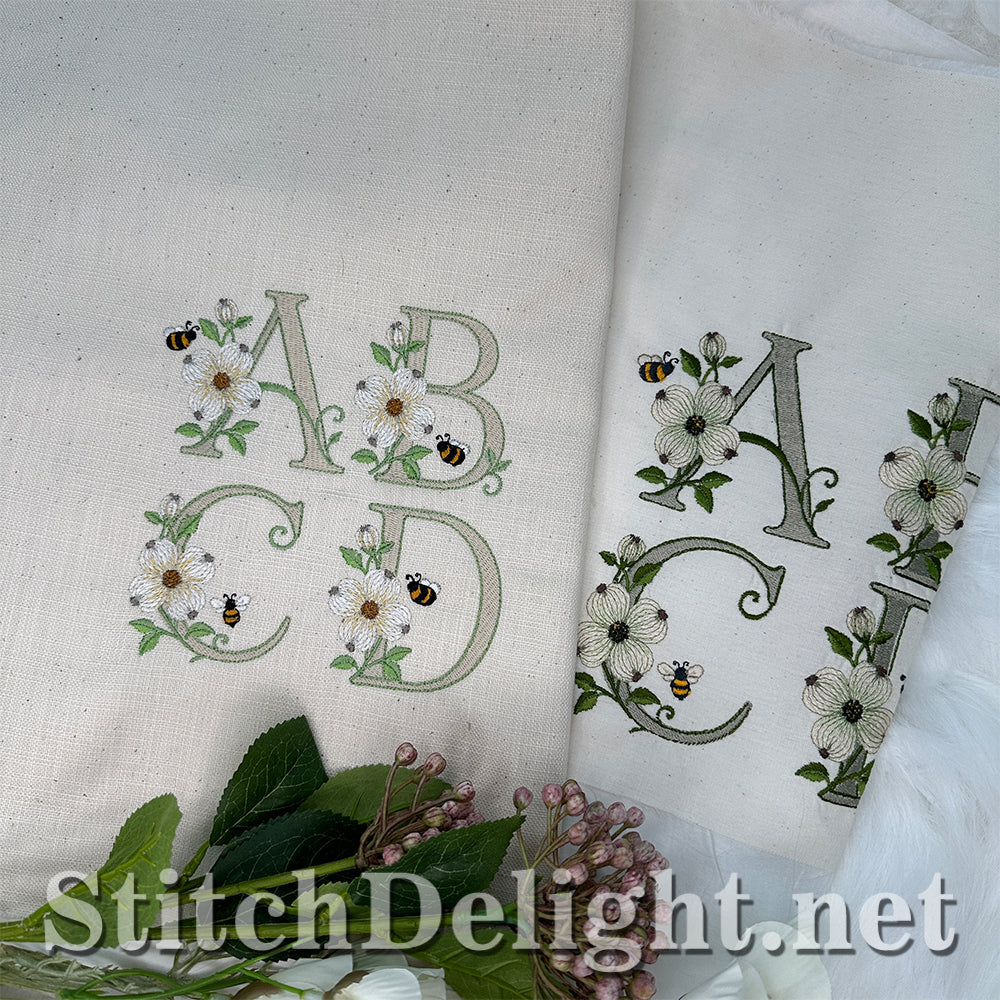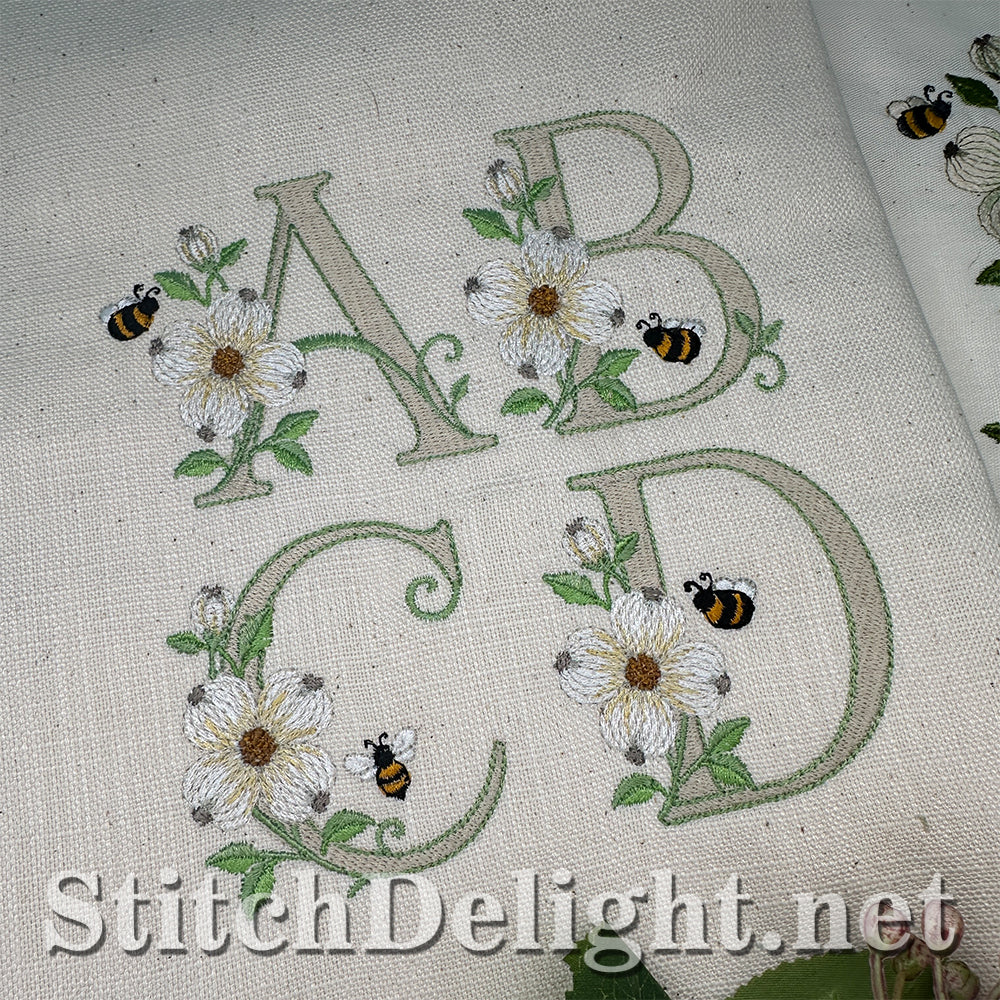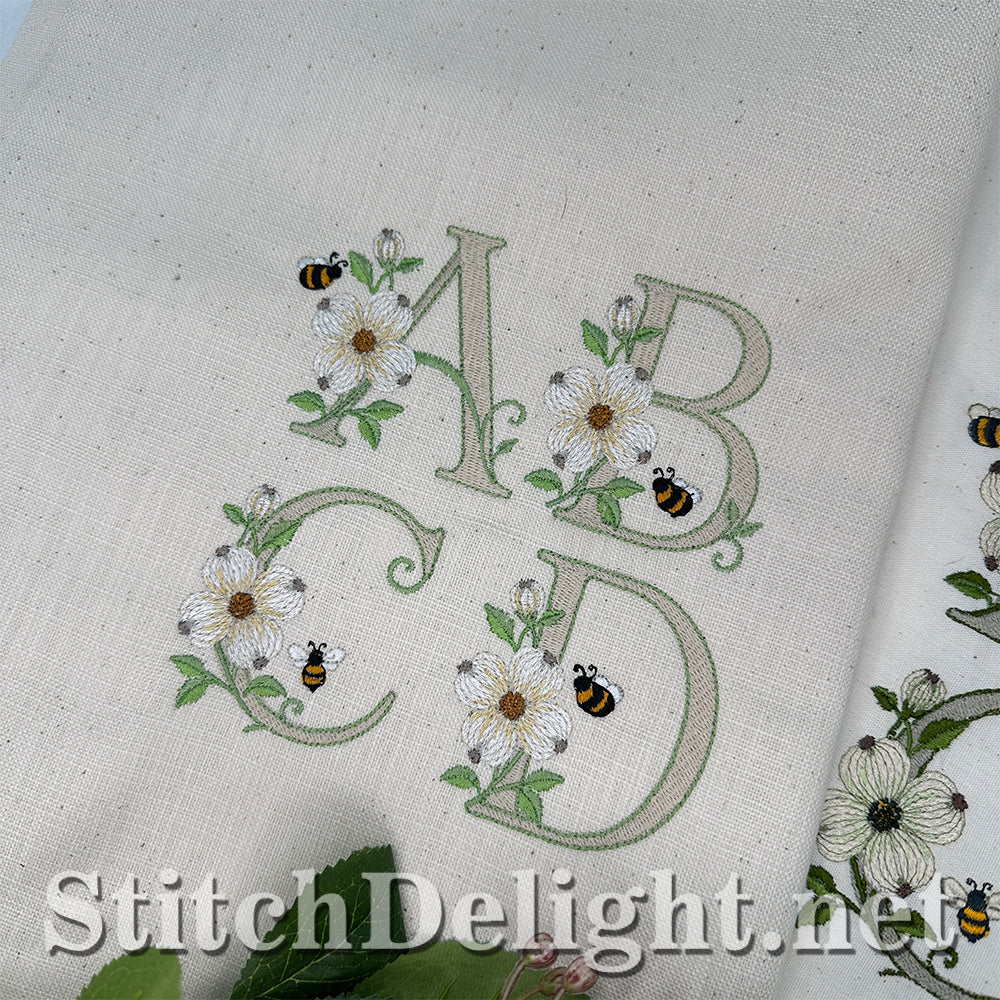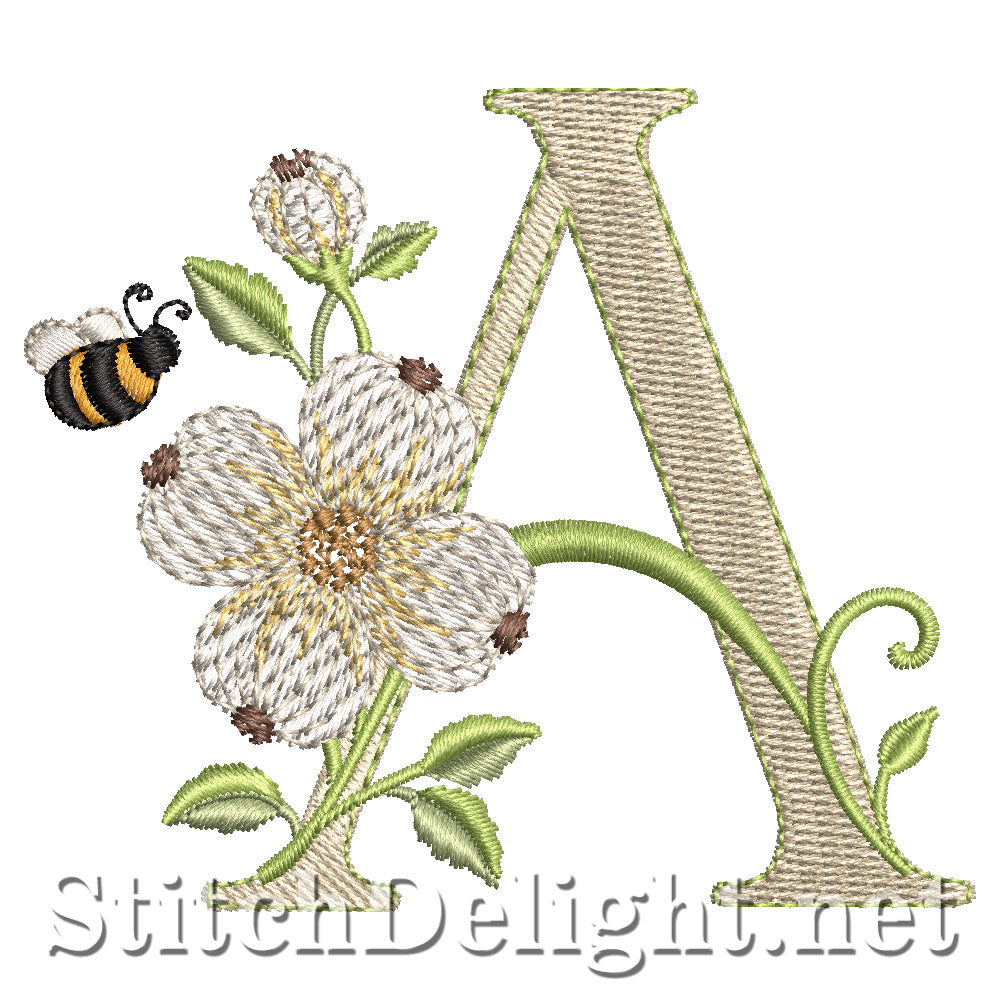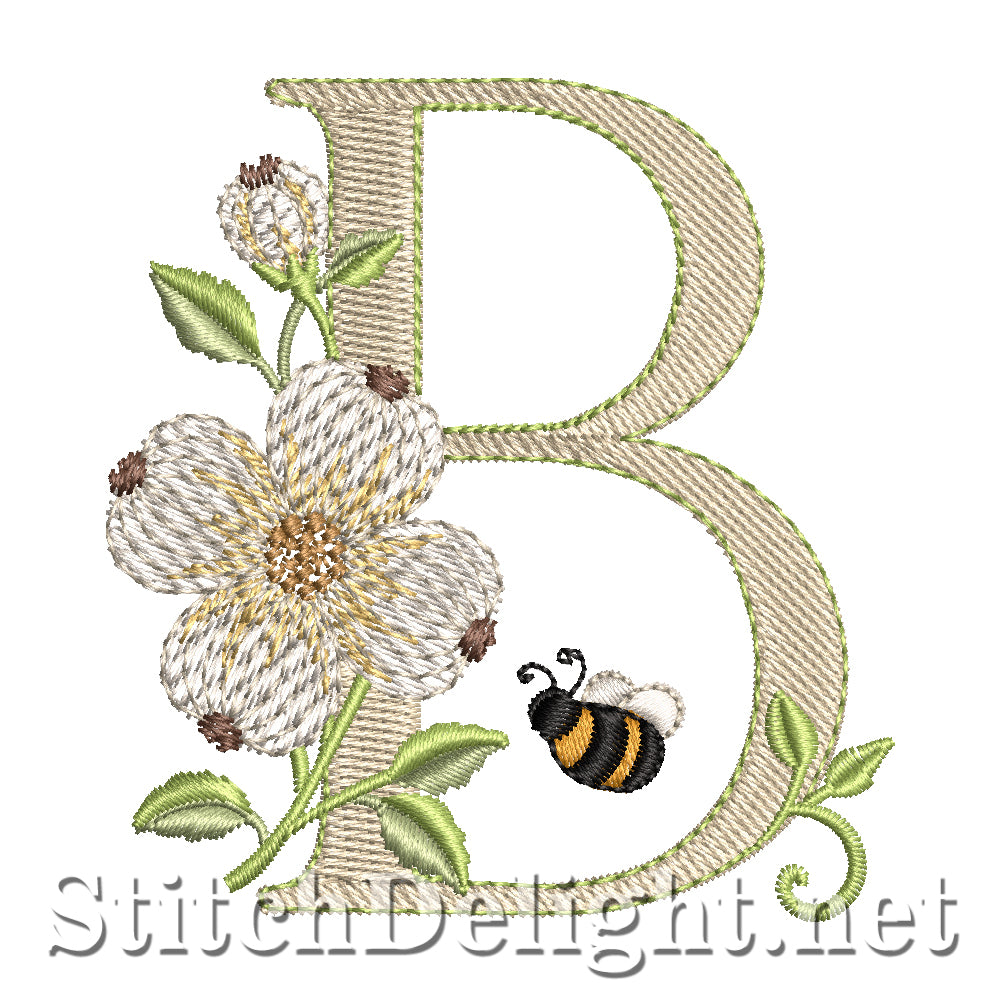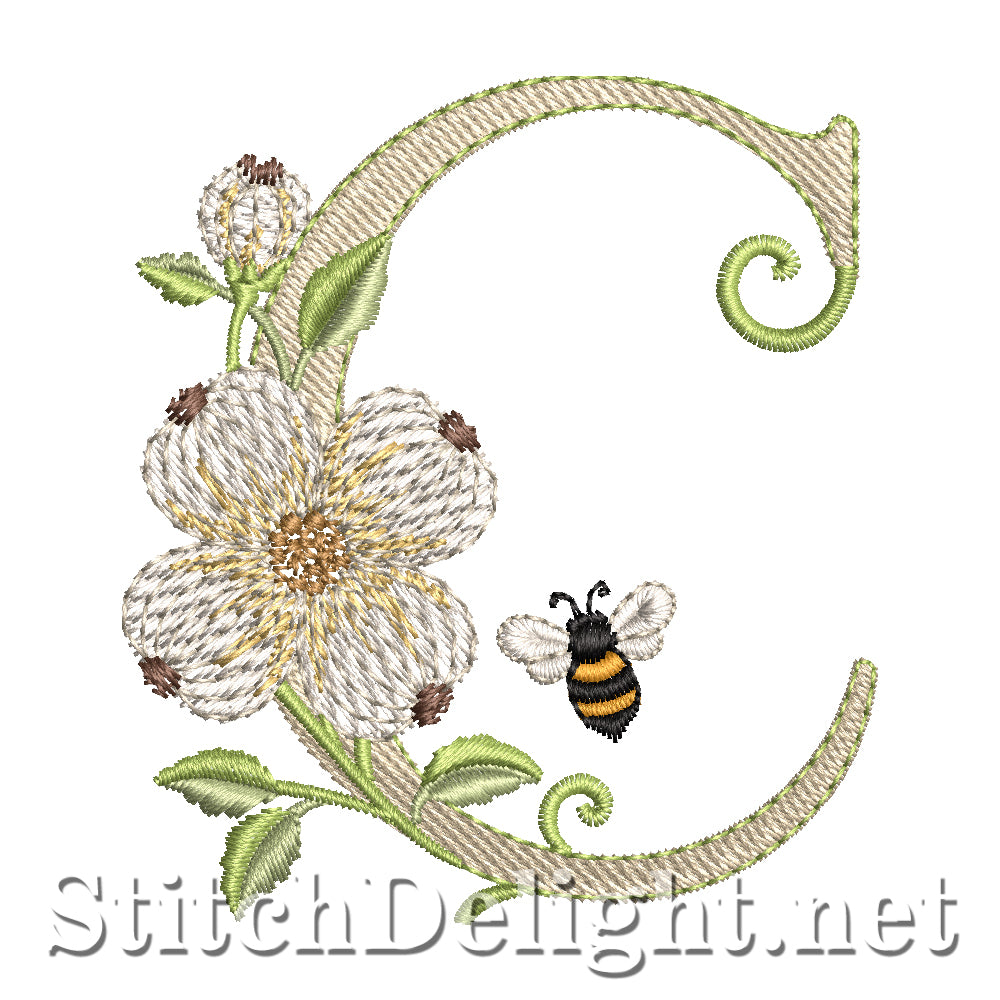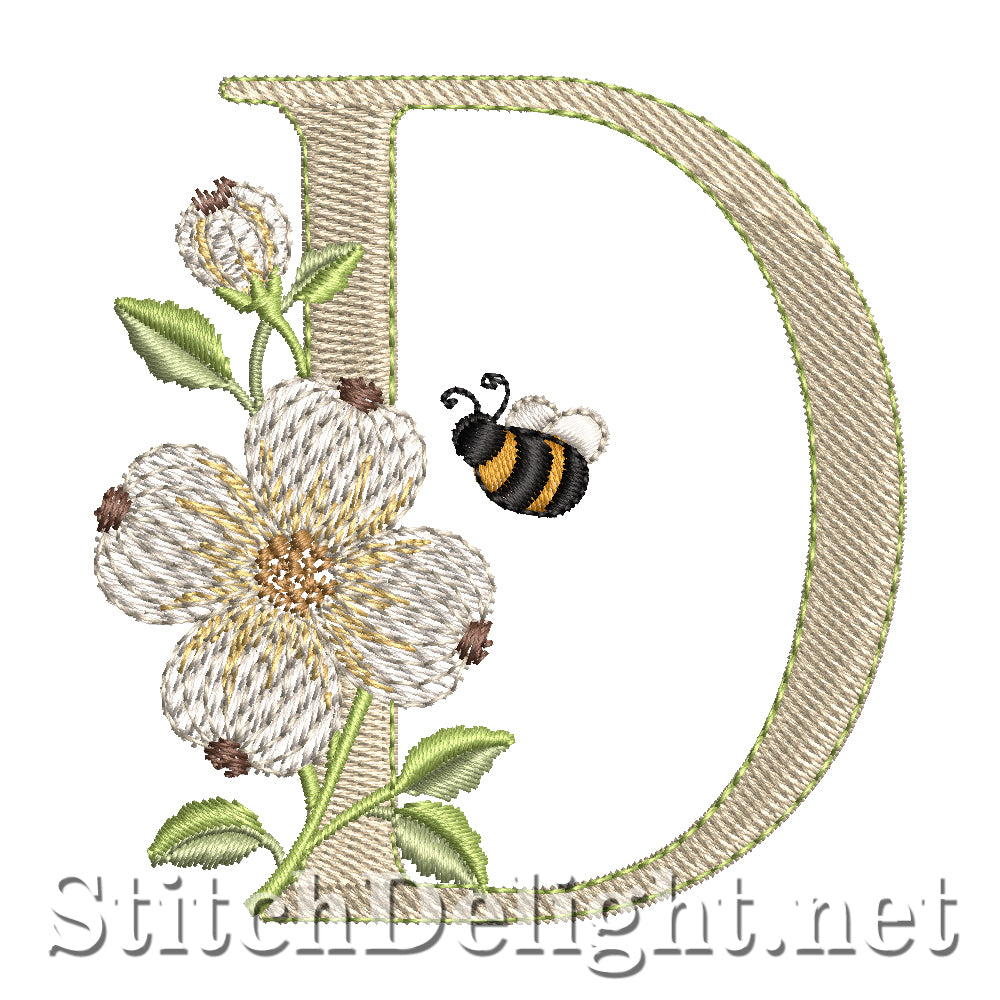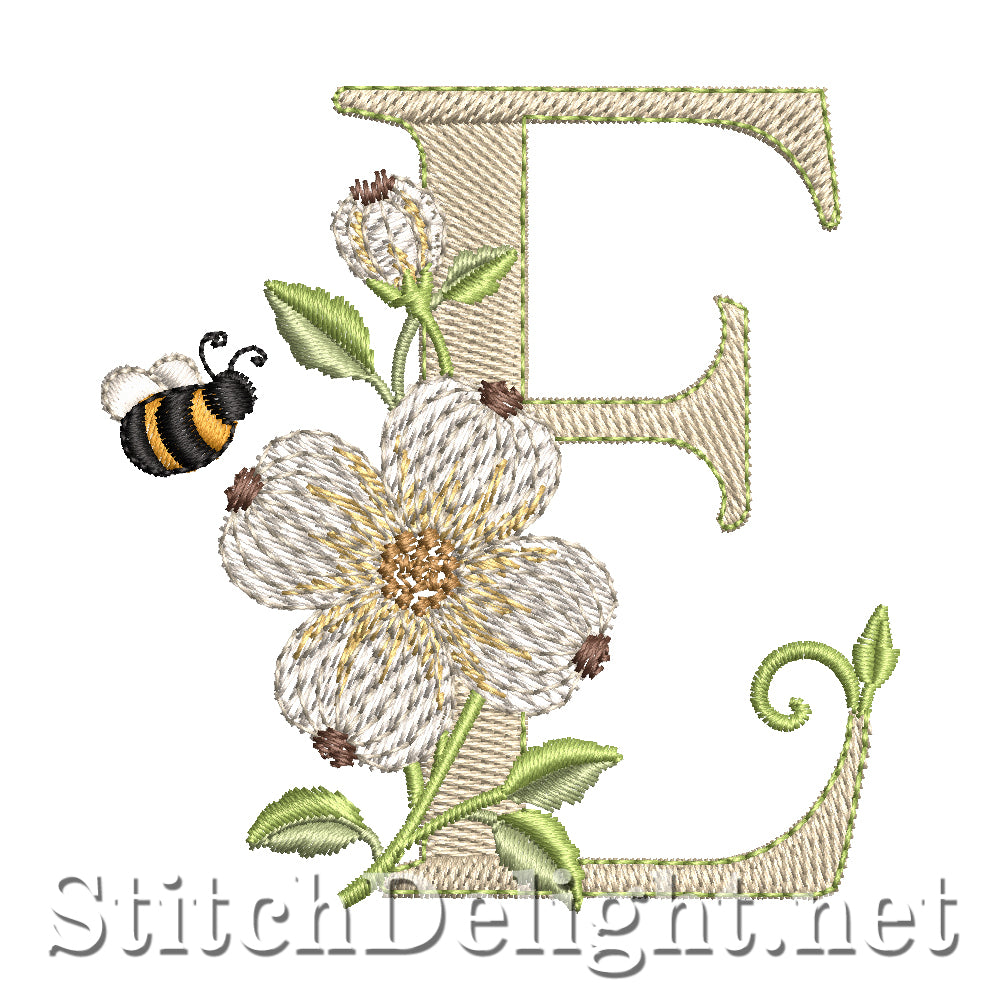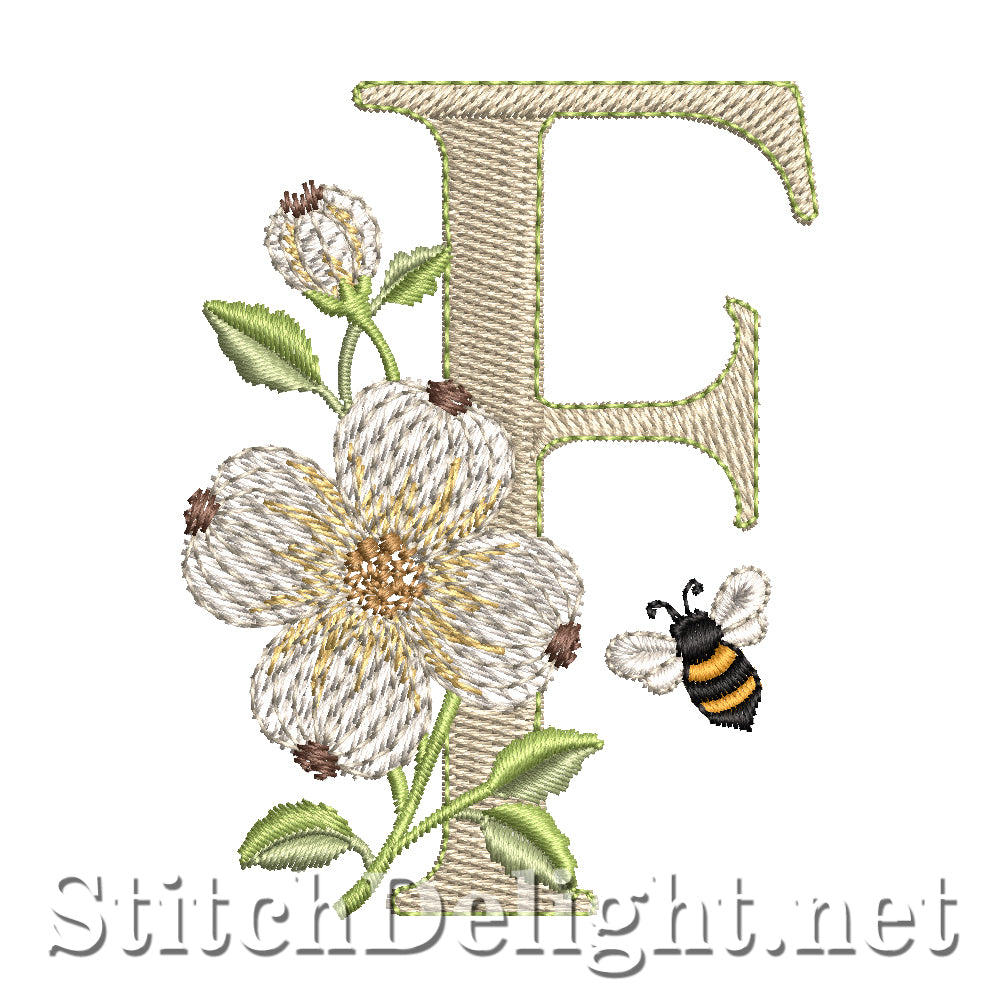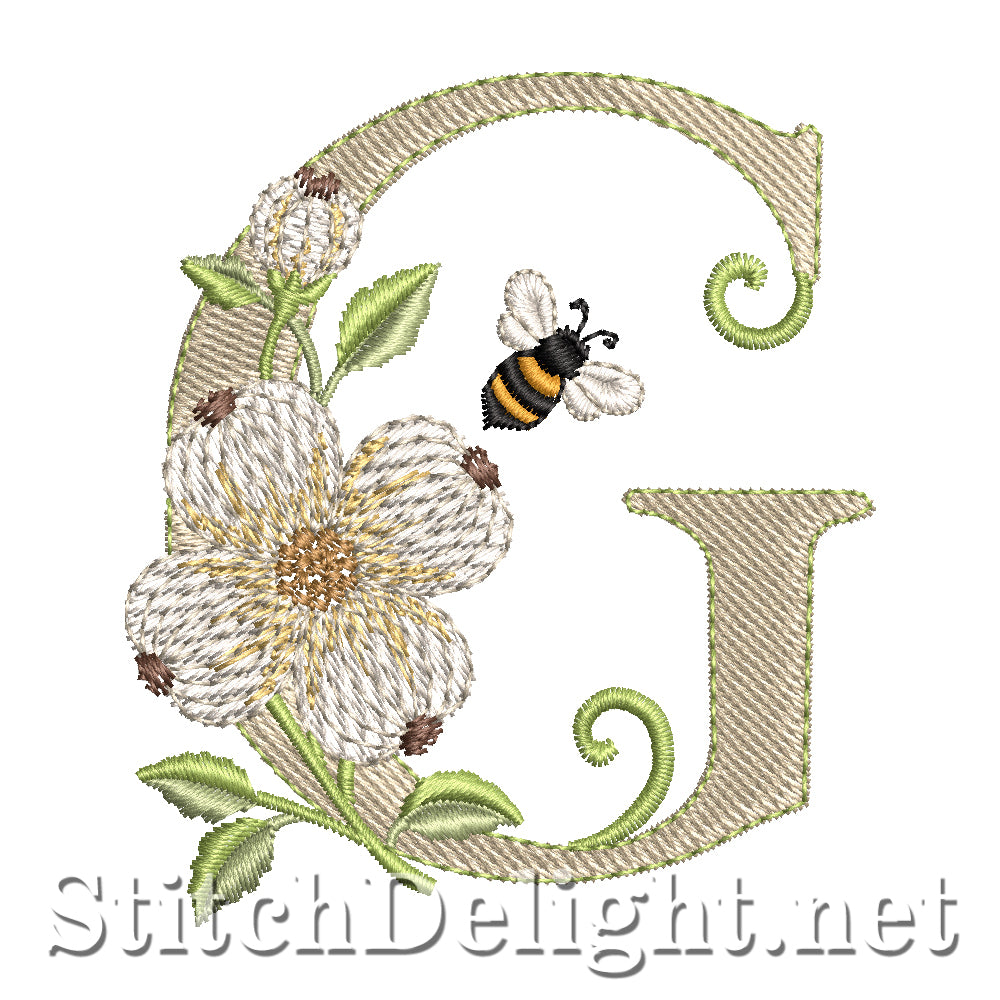
A Pretty font featuring tiny little bees and stunning dogwood flowers. Perfect for monograms on a variety of projects. Designed with slender vintage-inspired serif lettering and delicate leafy vine embellishments, this alphabet creates beautiful embroidered names, monograms, and personalized gifts with an heirloom feel. The elegant curves and botanical accents stitch beautifully on everything from luxury towels and linen napkins to zipper pouches, tote bags, quilts, cushions, table runners and nursery décor. 4x4 hoop font with a letter height of 66mm / 2.5"